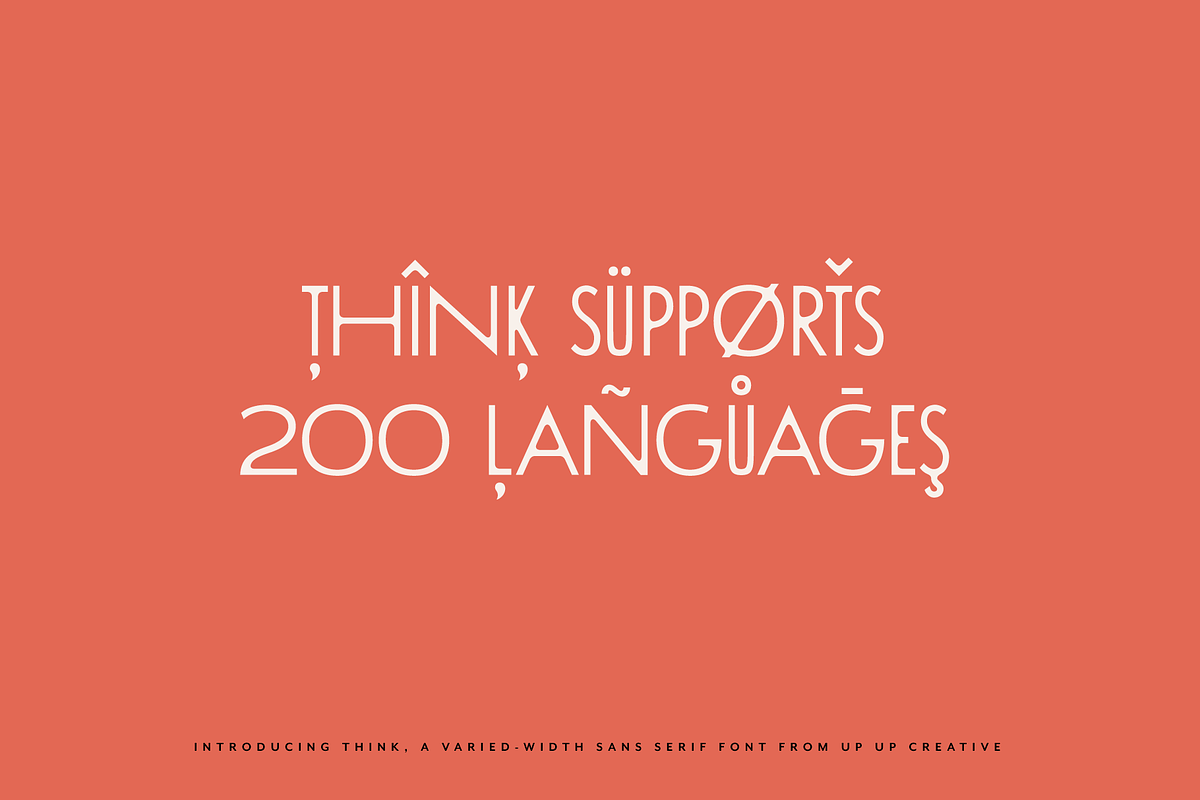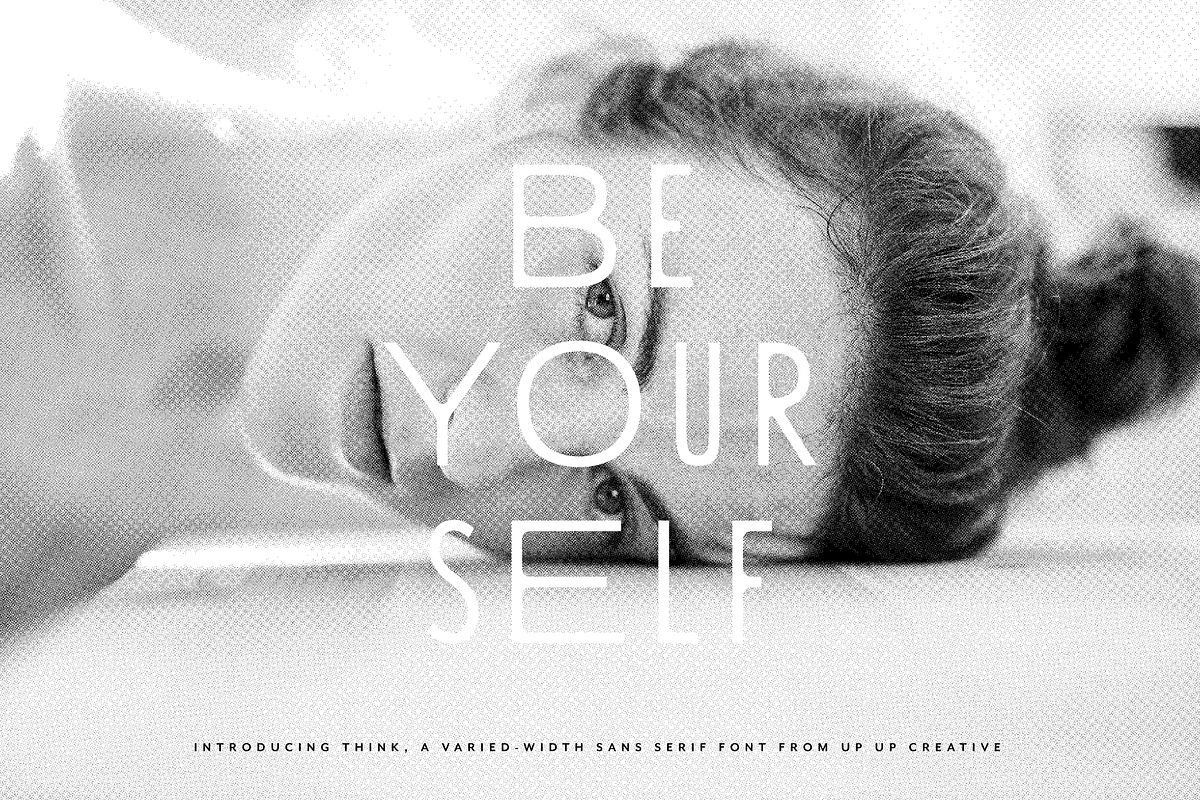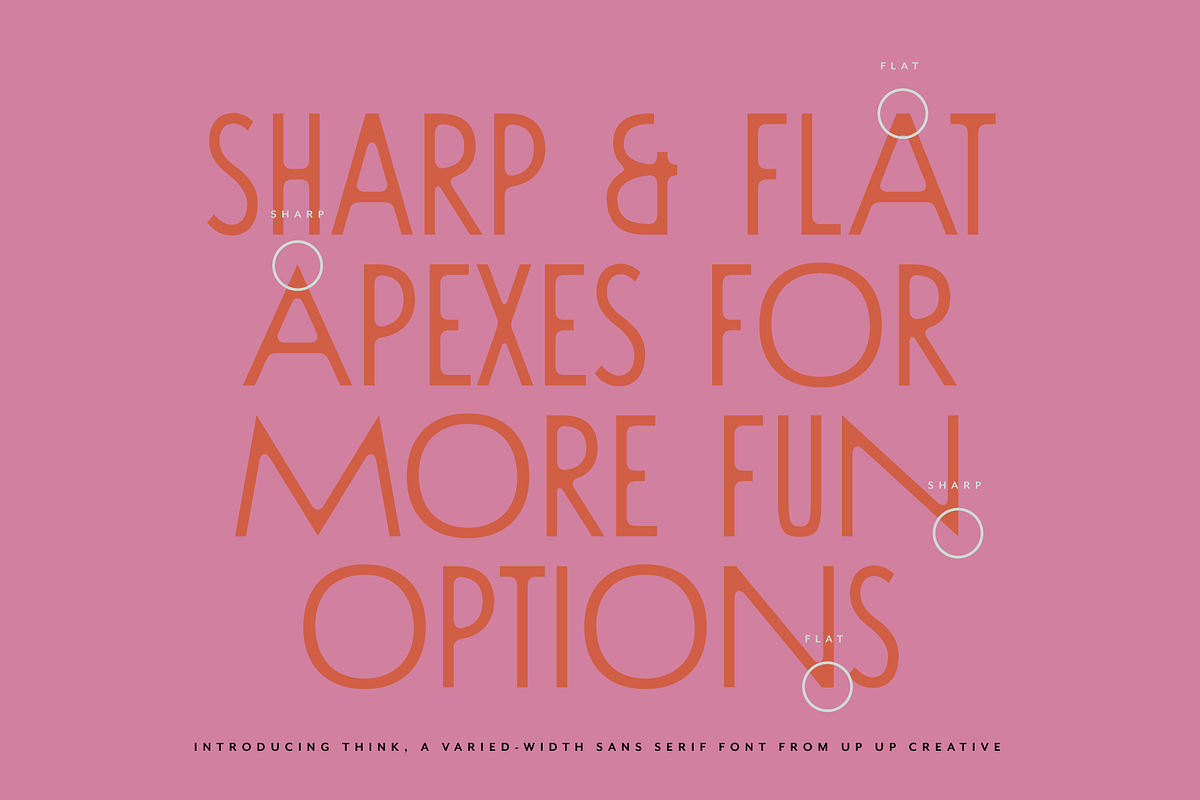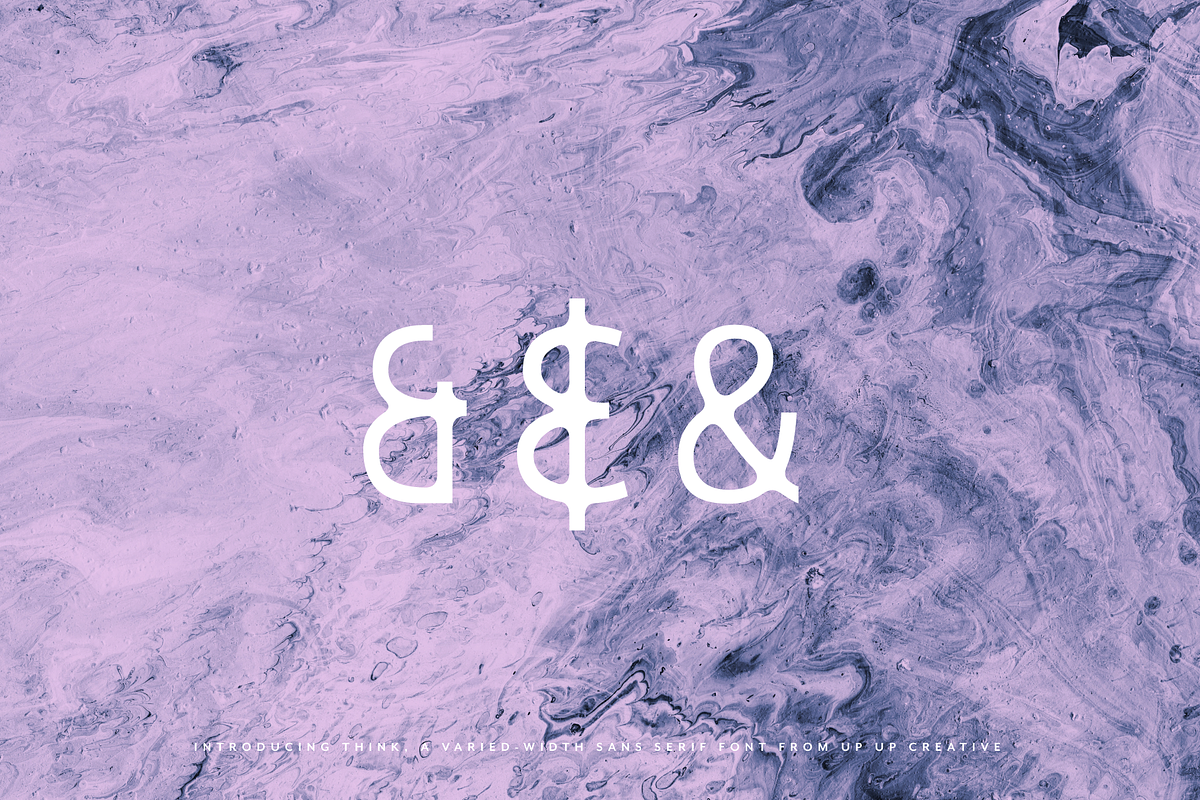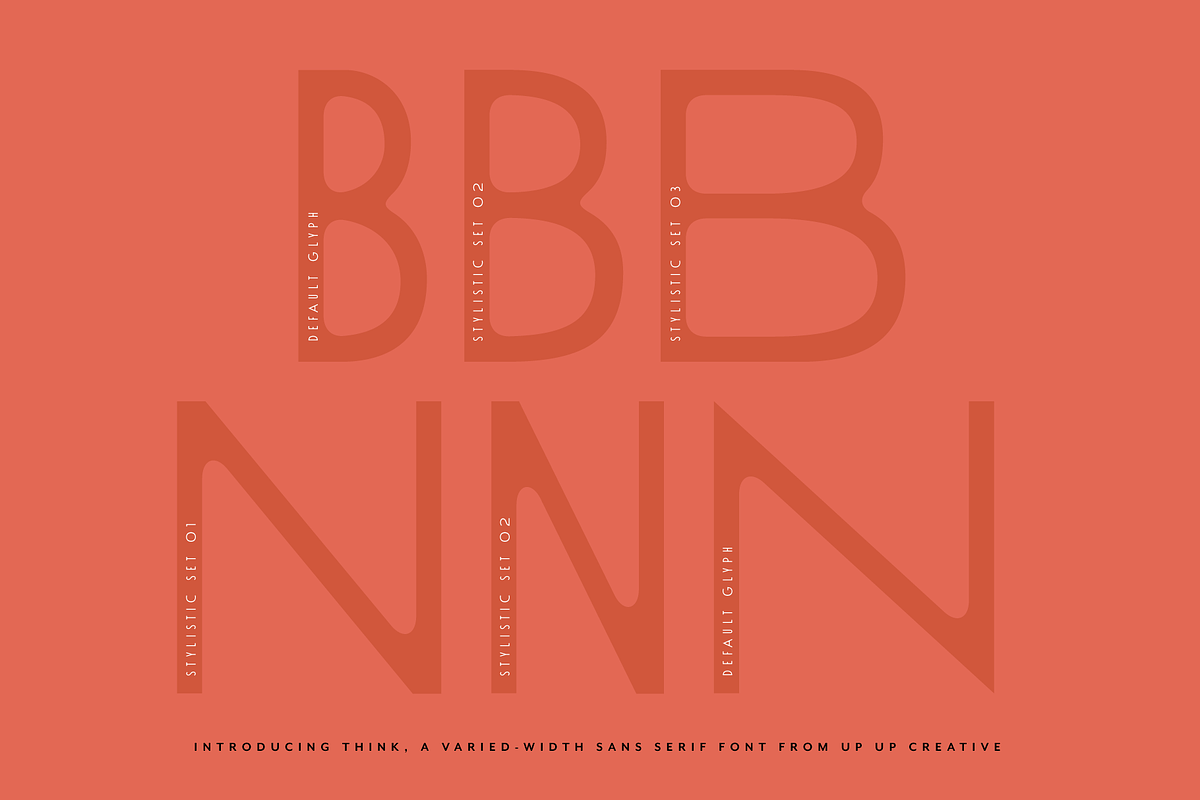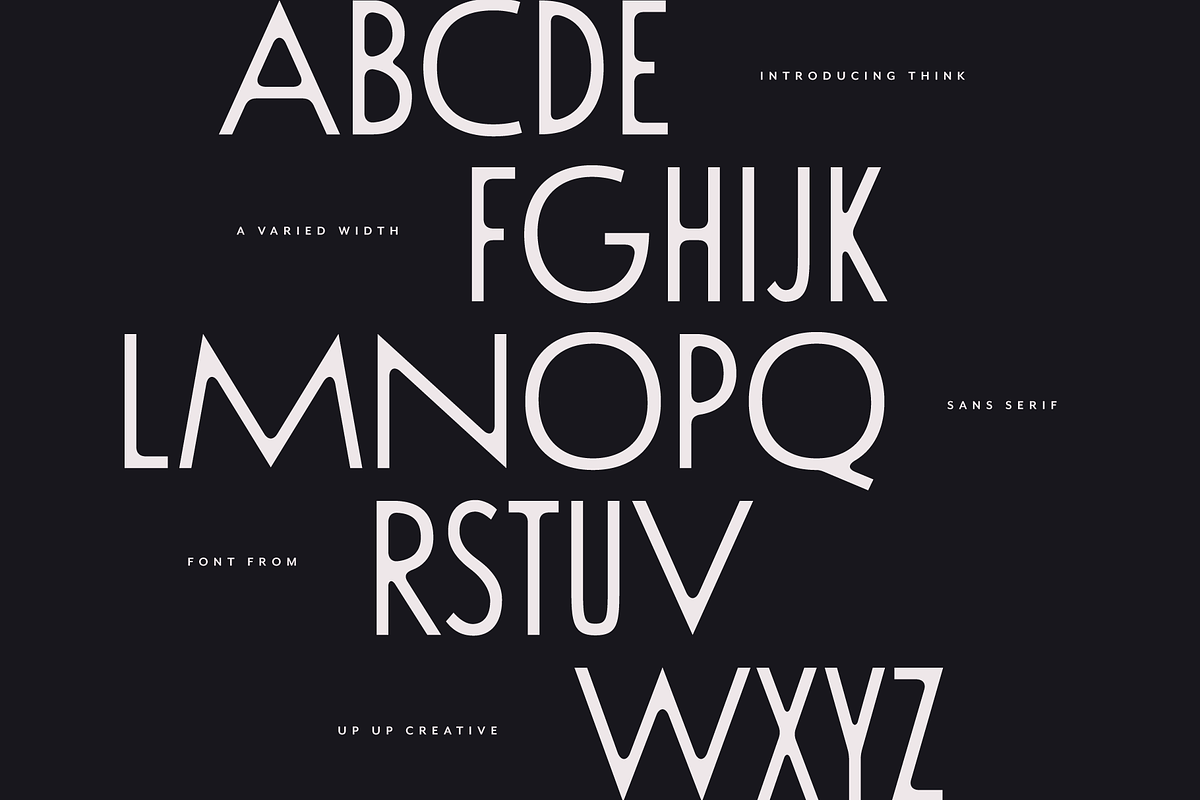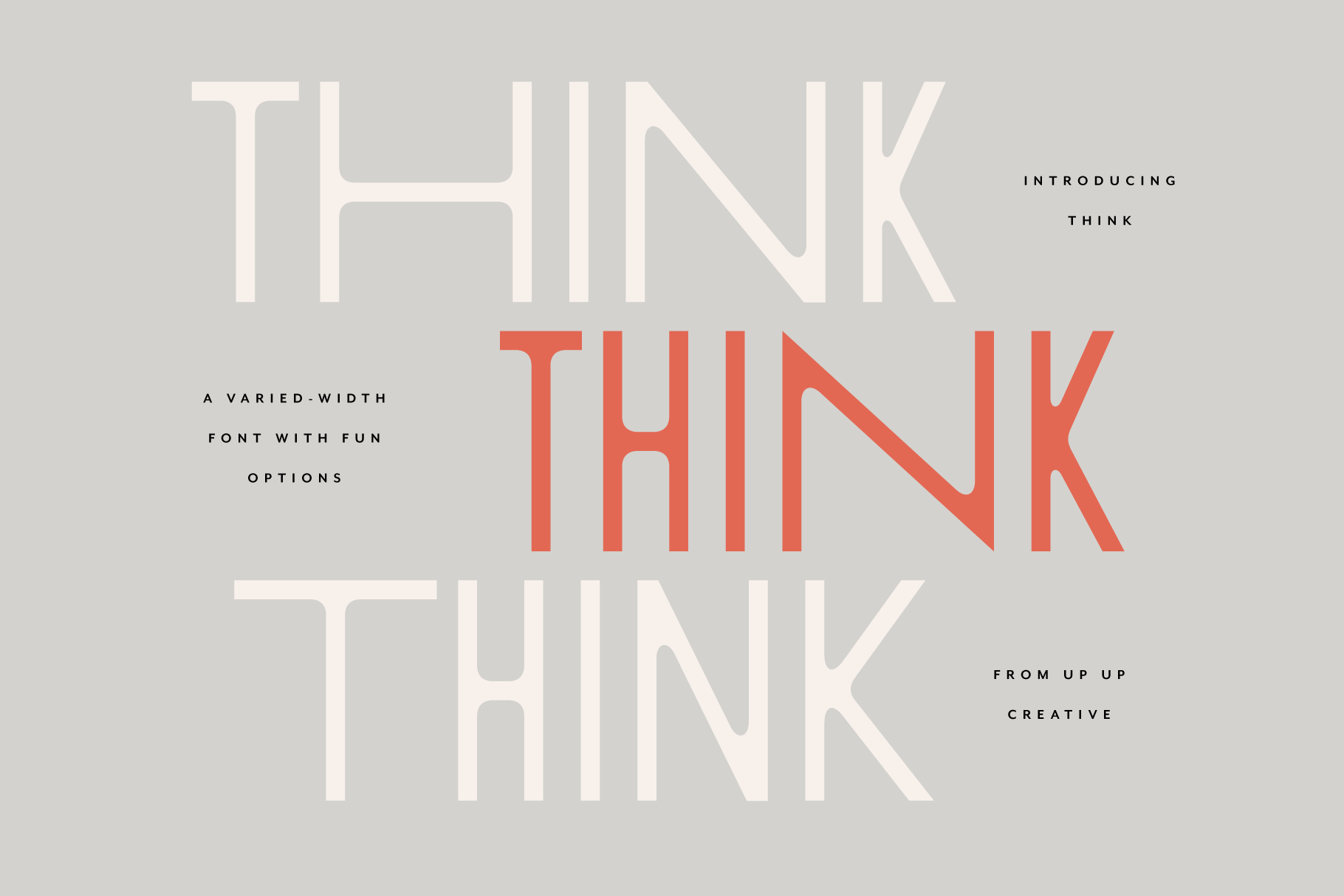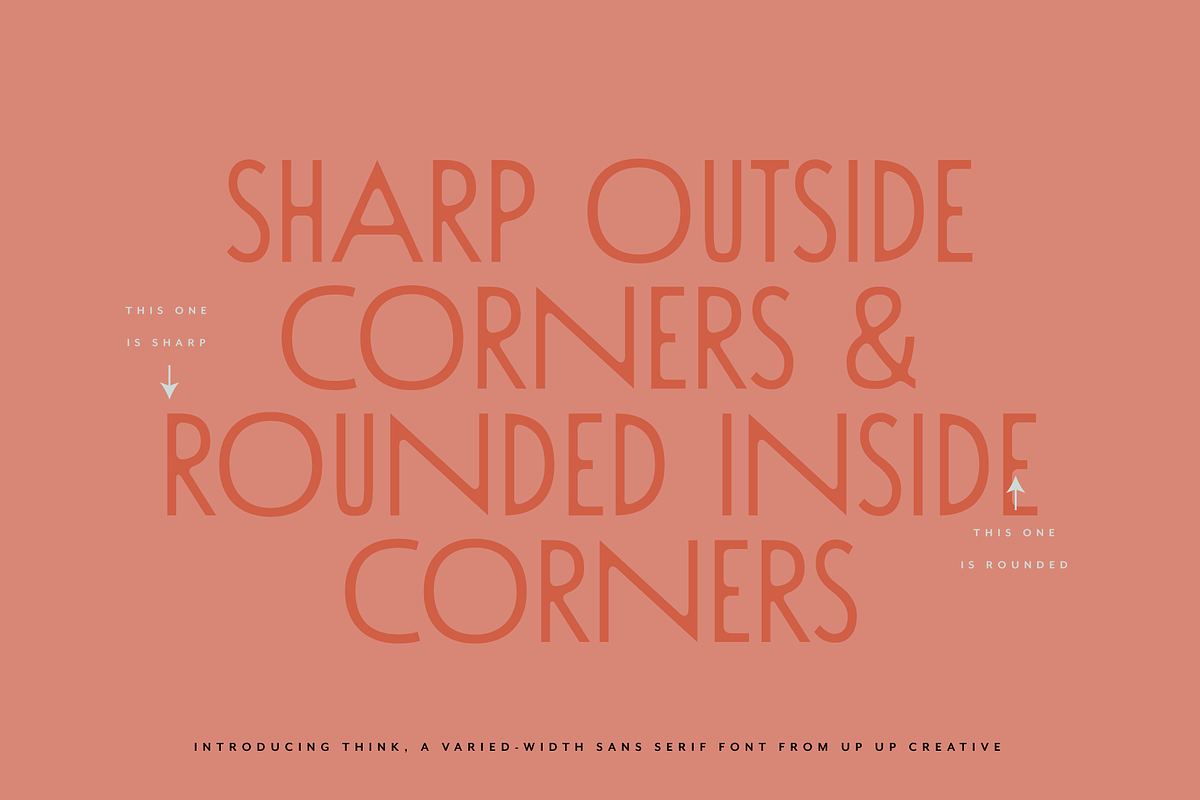
Think Sans - A Varied-Width Font
Meet Think, a varied-width sans serif font with fun options. At first glance, Think appears to be your standard all-caps mono weight sans. But if you look more closely, you’ll see that Think pairs wide and narrow characters to create a bold, eye-catching look that’s perfect for headlines, editorial design, monograms, branding, logos, poster design, and more.
Think includes over 800 glyphs and uses 4 stylistic sets to give you lots of options in terms of the width of each letter. OpenType features include character variants, stylistic sets, and multilingual support (including multiple currency symbols). These features can be very easily accessed by using OpenType-savvy programs such as Adobe Illustrator and Adobe InDesign. (To access these awesome features in Microsoft Word, you'll need to get comfortable with the advanced tab of Word's font menu. If you need help with this, ask me!)
Love this font! But I wish there was at least a standard-width version included. I'm using it for a project where I don't want to as much variation in the letter widths and individually changing all the letters is a pain.
Hey, Madison. Thanks for the feedback. I appreciate it. When you want a standard-width version, you can just turn on Stylistic Set 02 in your OpenType-capable software (for example in Illustrator, go to Window > Type > OpenType and click on the bottom-right button in that window to see all of the available stylistic sets). Hope this helps.